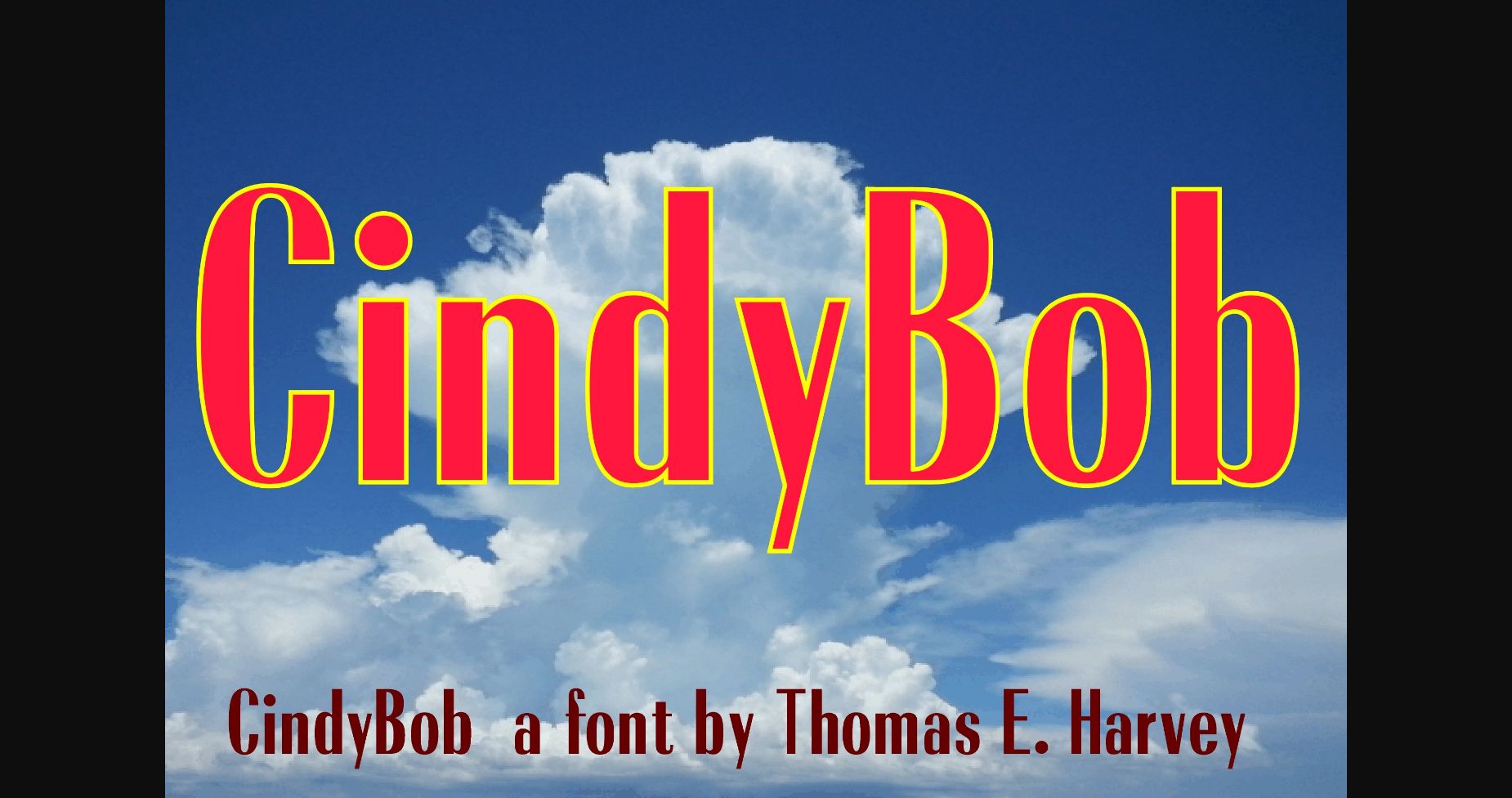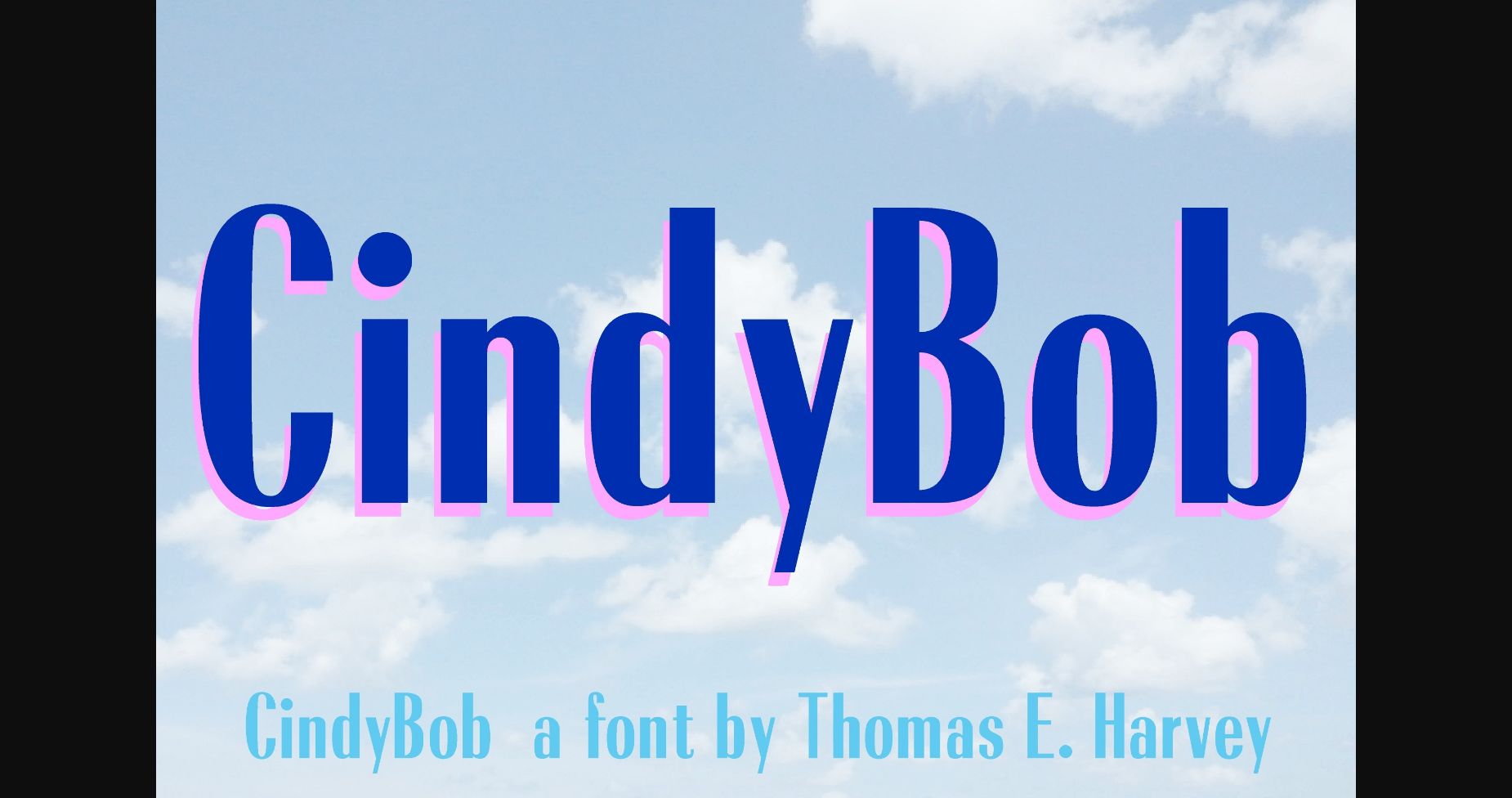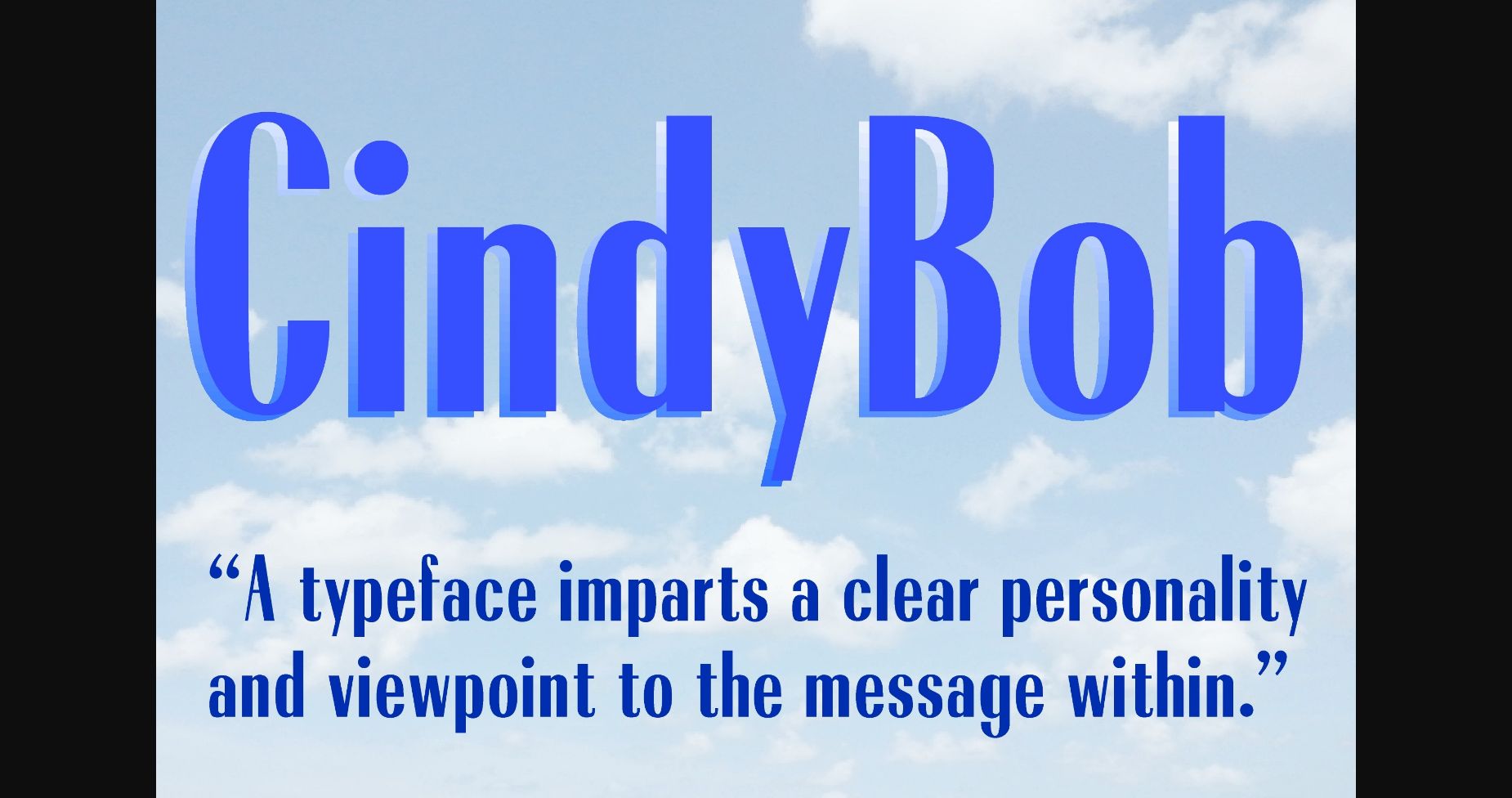
CindyBob Font
About CindyBob Font
A sophisticated-looking sans serif font that works for headlines, logos, and sometimes, text blocks. Add this font to your fonts’ library and notice how it stands out from the others!